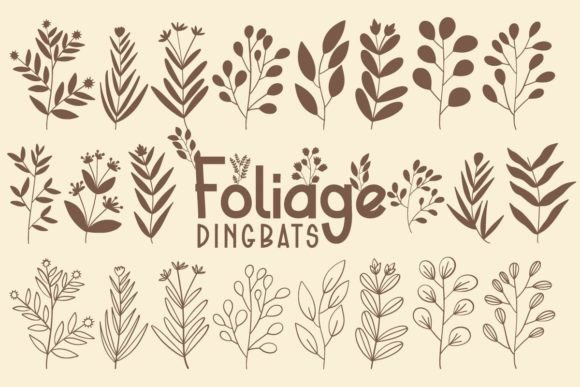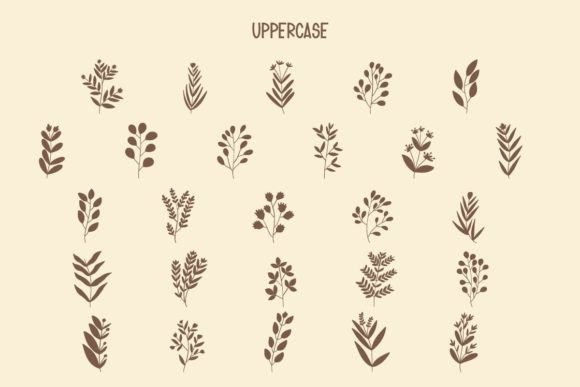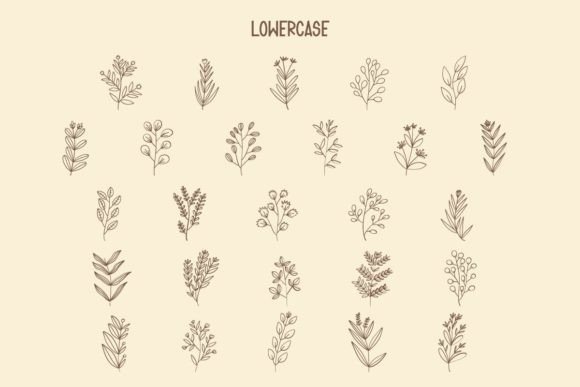
Foliage Font
Introducing Foliage, a botanical-themed dingbats font designed to elevate your nature-inspired projects! With its modern and stylish glyphs, Foliage offers a versatile collection of botanical symbols that will enhance your designs with a touch of natural beauty.
The glyphs in Foliage are inspired by various foliage elements such as leaves, branches, flowers, and vines. They can be used as decorative dividers to add an elegant and organic touch to your layouts. Whether you’re designing invitations, greeting cards, stationery, posters, mugs, or any other creative project, Foliage’s glyphs will bring a fresh and nature-inspired aesthetic to your designs.
The versatility of Foliage allows you to incorporate these modern glyphs in numerous ways. You can use them as design elements, placing them strategically to frame your text or highlight important sections of your design. Additionally, they can be used as standalone motifs or combined to create intricate patterns and backgrounds.
Foliage is perfect for both digital and print projects. Whether you’re working on a digital design using software like Adobe Photoshop or Illustrator, or you’re creating physical products such as stationery or posters, Foliage’s glyphs will add a contemporary and nature-inspired flair to your work.
Whether you’re a graphic designer, illustrator, or crafting enthusiast, Foliage will be a valuable addition to your design toolkit. It will bring a sense of natural beauty and elegance to your nature-themed projects, captivating your audience with its modern and stylish glyphs.